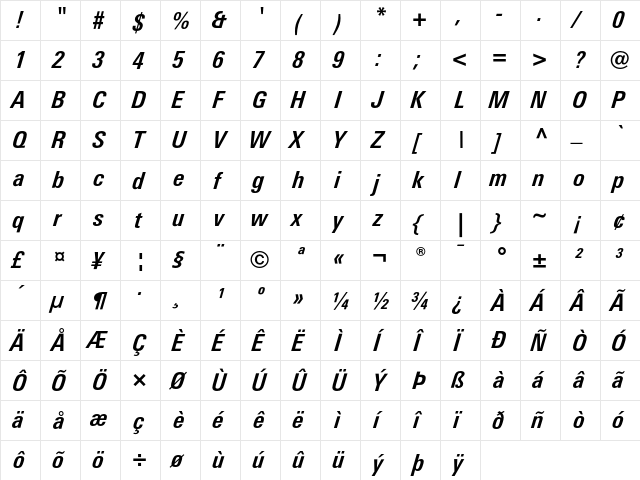
LinotypeUnivers CondBoldItalic Font Preview
Design Context for LinotypeUnivers Typeface
LinotypeUnivers takes a measured approach to typography — its balanced proportions and neutral character make it a reliable workhorse for both digital and print work. The slanted form adds forward momentum and visual energy. The heavy weight commands attention and anchors typographic hierarchies. Its narrow stance lets it pack a punch even in space-constrained designs.
Pro Tip: Use LinotypeUnivers for emphasis, pull quotes, and subheadings where its slanted energy can add rhythm to the layout.